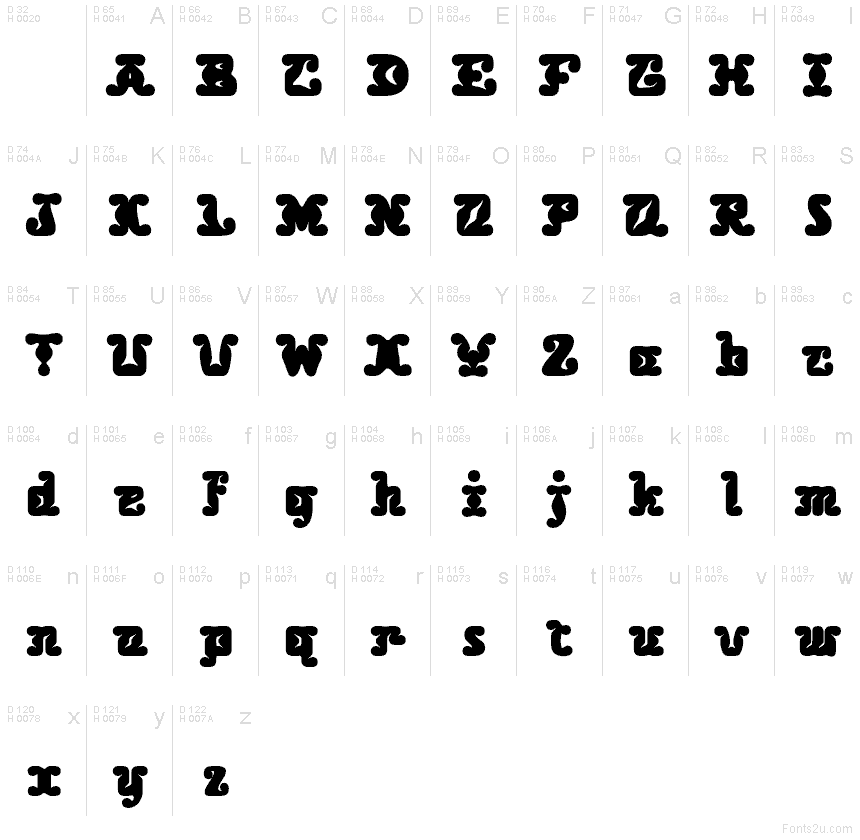
CSMaizeDrawn-Regular Demo
CS Maize Drawn font by Craft Supply Co. is a free hand-drawn display font. Part of the CS Maize family, it stands out with chunky, ink-blot shapes, pillowy counters, and squishy edges that feel almost melted. The rhythm is playful but deliberate—bouncy curves, tight bowls, and a tactile, marker-drawn texture that turns a single word into a headline.
Using CS Maize Drawn, you get loud, retro warmth that shines on festival posters, indie album covers, funky brand marks, craft packaging, food truck menus, and social promos. This free font reads best big and generously spaced; pair it with a clean grotesque sans for small copy to let the blobby forms breathe. It’s a natural fit when you want joyful character without losing impact.